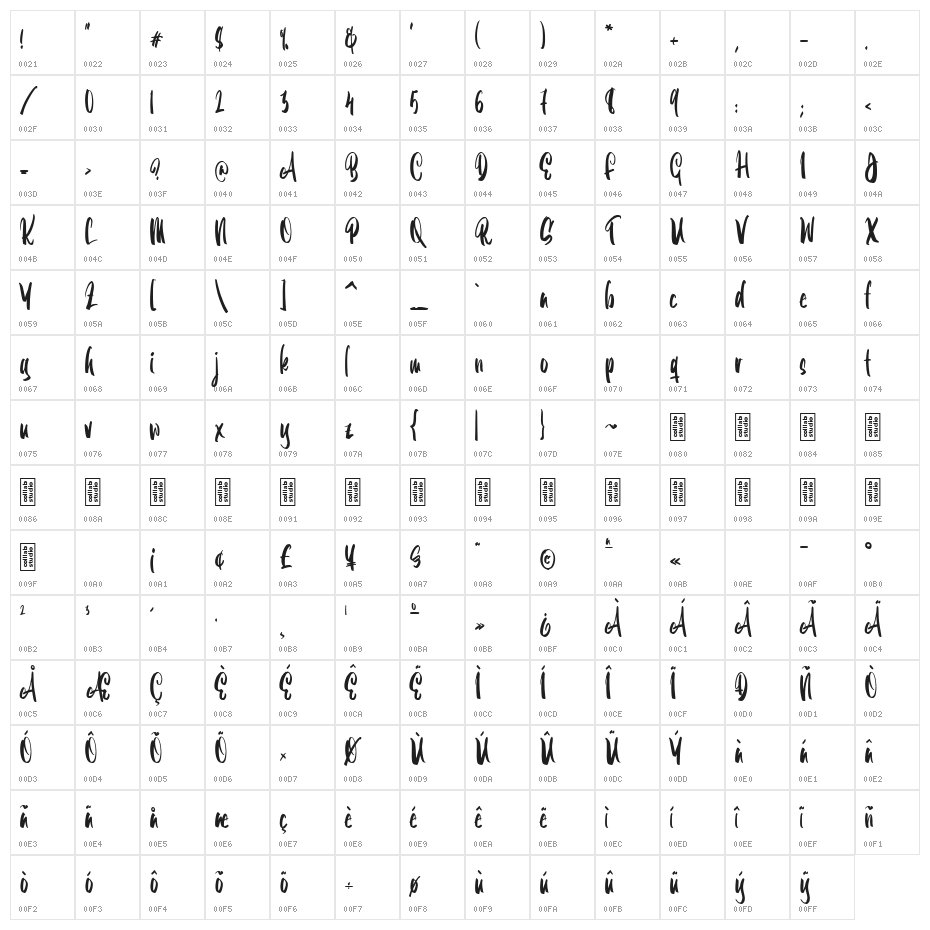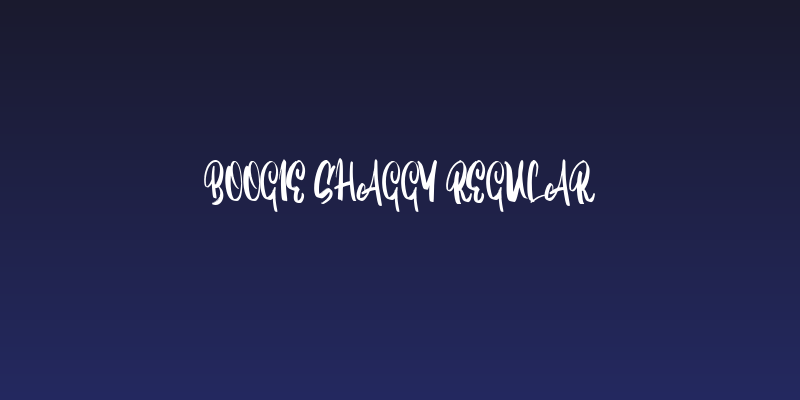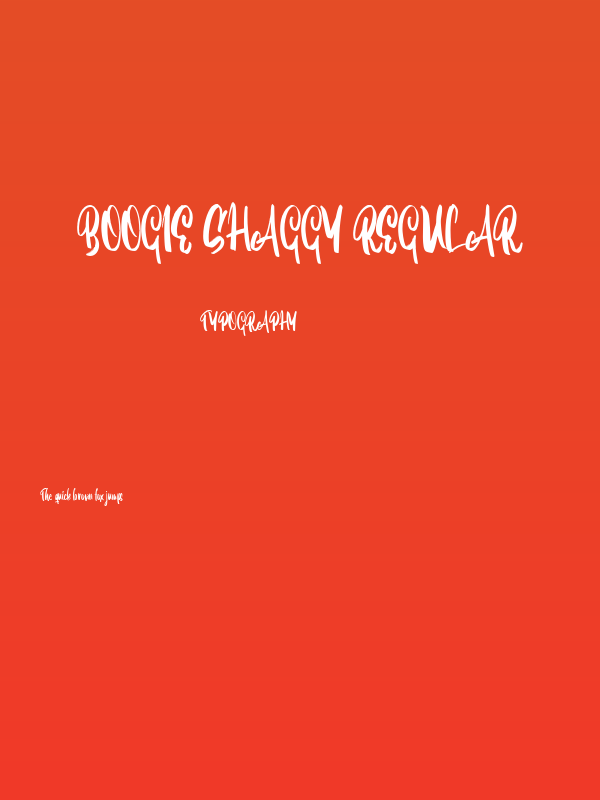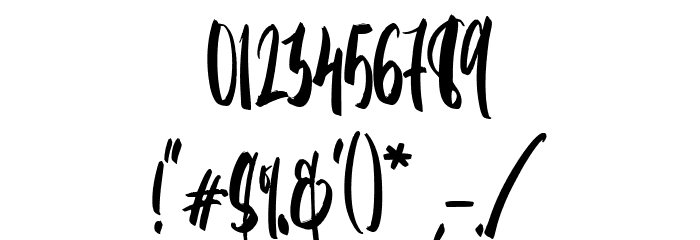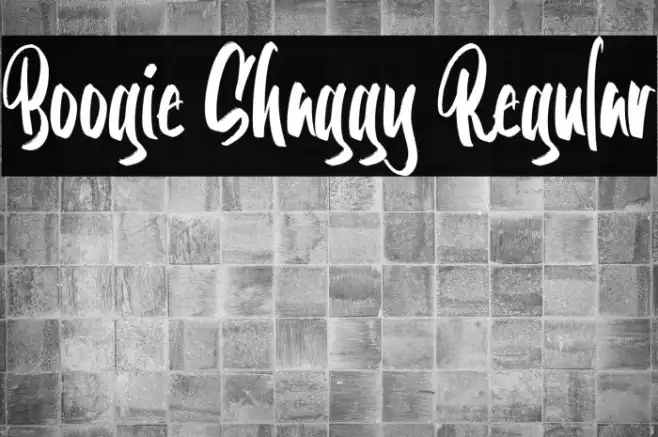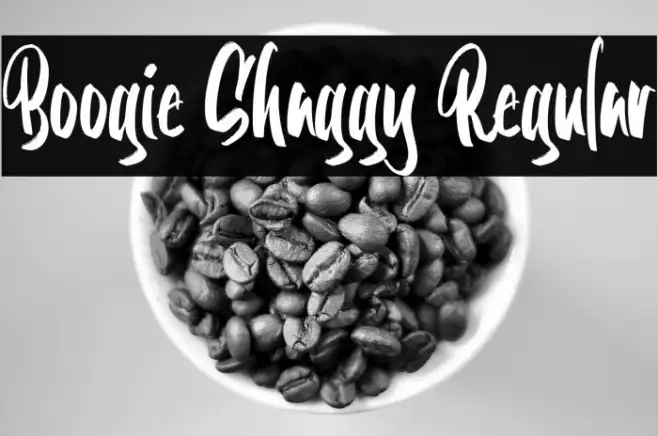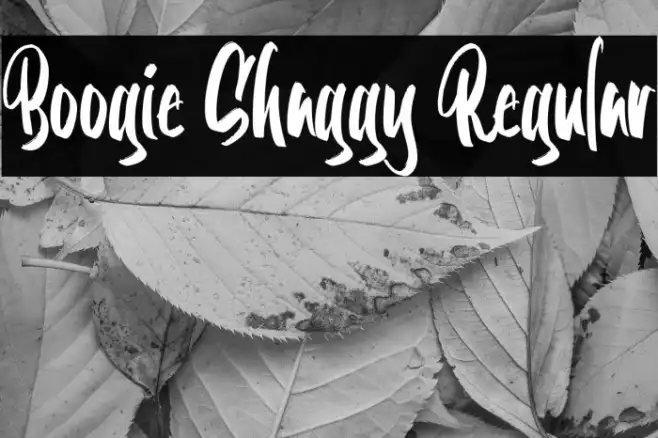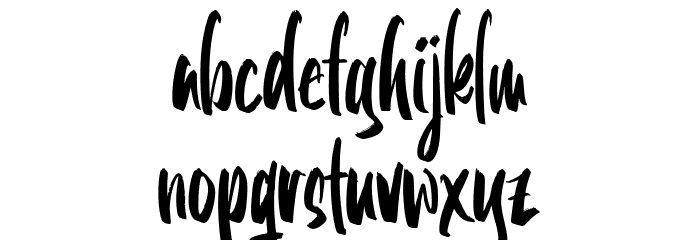
Boogie Shaggy Regular Font
Boogie Shaggy Regular Description
This font features a bold and expressive handwritten style, characterized by its fluid and dynamic strokes. The uppercase letters are tall and slightly condensed, giving a sense of energy and movement. The lowercase letters maintain a consistent flow, with playful loops and curves that add a whimsical touch. The numerals are bold and easily readable, complementing the overall style. Special characters are creatively integrated, maintaining the font's lively and artistic feel. This font exudes a sense of fun and creativity, making it ideal for projects that require a personal and artistic touch.